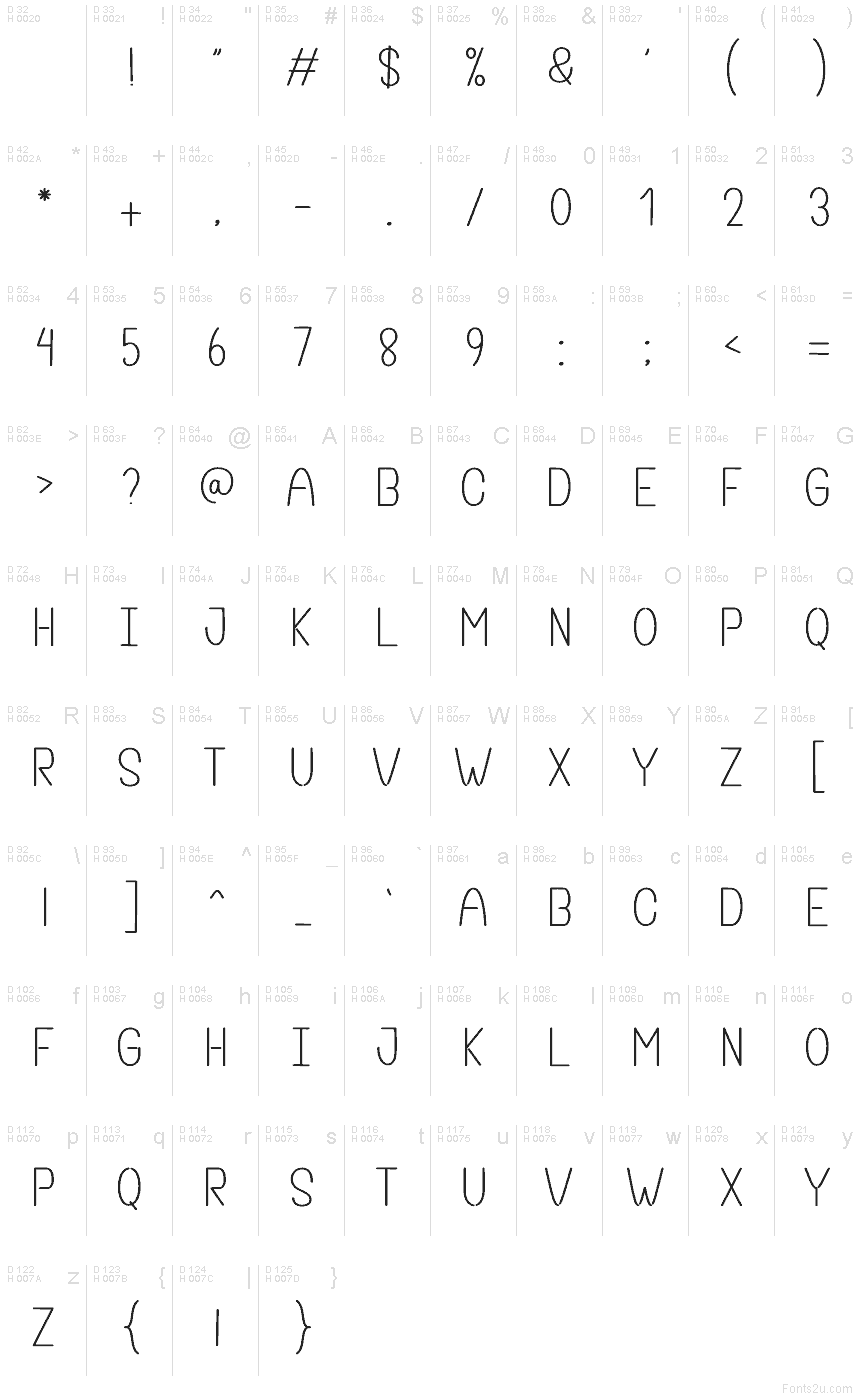
Neon Spooky
Neon Spooky font, created by Scratchones, is a sleek display typeface that combines a minimalist approach with geometric influences. It exudes a modern aesthetic and futuristic vibe with its clean lines continuously built both daringly and delicately within each letterform. Neon Spooky includes all uppercase letters with numbers and limited punctuation marks making it an excellent text addition to your design projects.